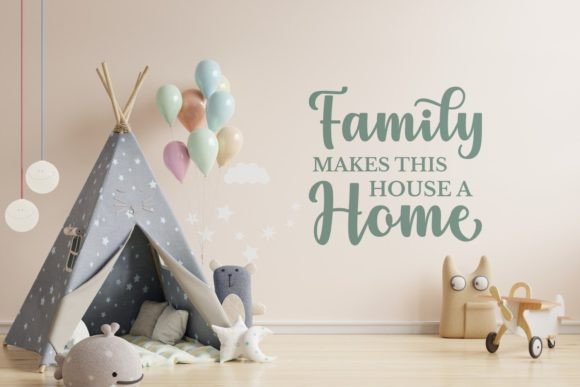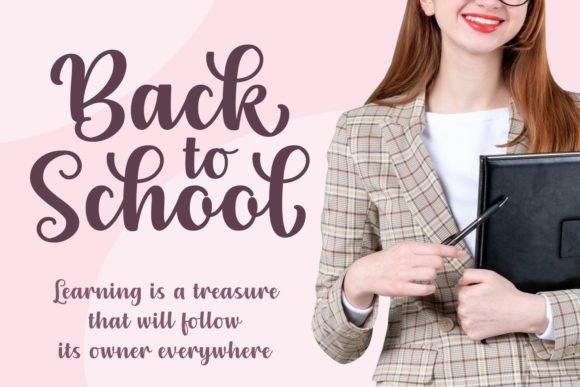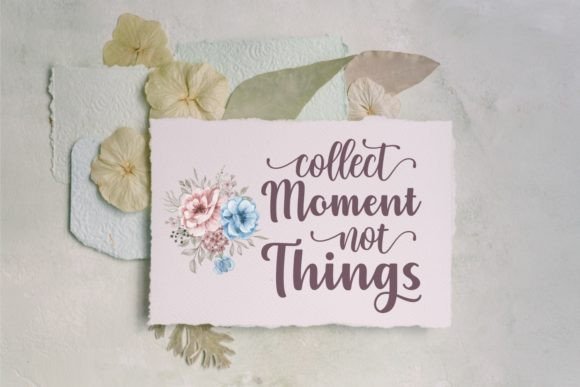
Introduction to Angela Honey Font
Beautiful, smooth and slightly playful.
👤 Author Situjuh
Angela Honey is a versatile calligraphy font ready to elevate your design This font is PUA encoded which means you can access all of the glyphs and swashes with ease.
Key Features of Angela Honey Font
Why Choose Angela Honey Font?